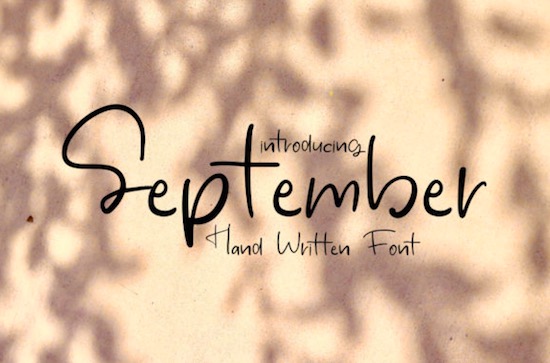
September Font
by iareCotton Duck
Introducing September Font. This is a dainty and sweet handwritten font that was designed and released by iareCotton Duck. Its well-balanced & distinct characters make this font a masterpiece.
A simple handwritten typeface is closely matched with a strong font style. The maximization of this advantage creates a beautiful, clear, and attractive calligraphy style. You are completely free to choose your own path. We can use it with another script typeface, even a display typeface like Navy Font and the results we get are not saying anything. We may even be surprised. So spend some time discovering how it will make you happy.
September Font with a modern style looks very appealing and interesting for loads of different design projects. It is very perfect to be used on any design such as Pinterest banners, websites, logos, printed products, and more.